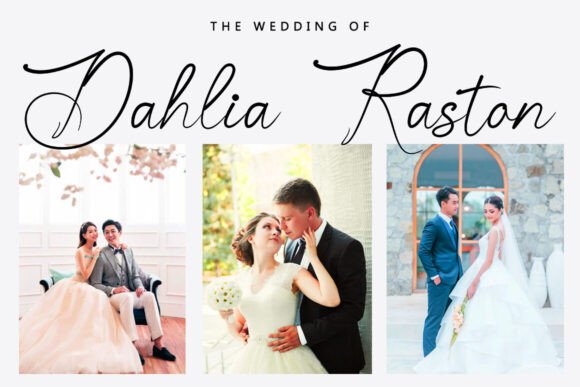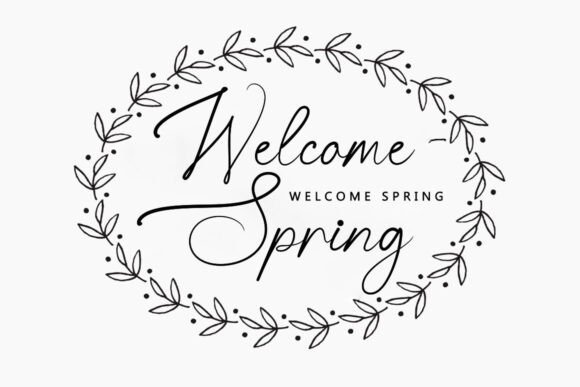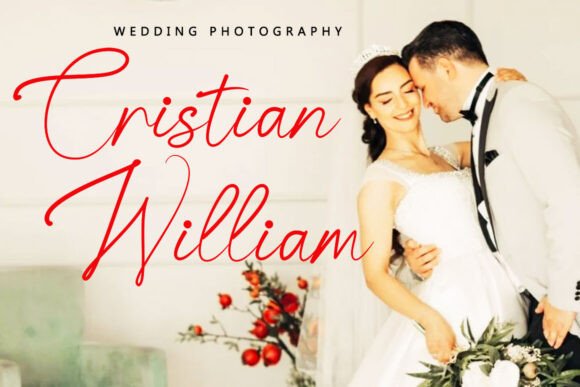
Bingston Signature Font
Bingston Signature is a very beautiful, elegant, and the best writing font. Expertly designed to be a true favorite, this font has the potential to take your creative ideas to the highest level!This font is PUA encoded, which means you can access all the glyphs and strokes easily! Melinda Giovany is attractive because it is sleek, clean, feminine, sensual, glamorous, simple and very readable, thanks to the many luxurious letter connections. The classic style is perfect for applying in various formal forms such as invitations, labels, restaurant menus, logos, fashion, makeup, stationery, novels, magazines, books, greeting/wedding cards, packaging, labels, or any type of advertising for your needs.